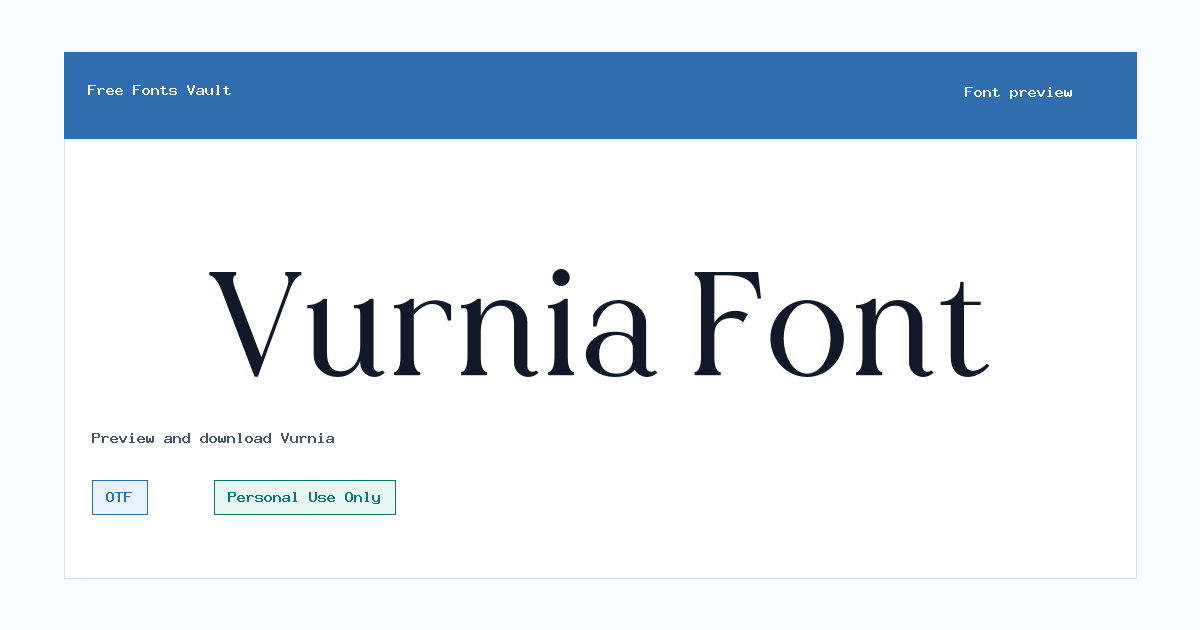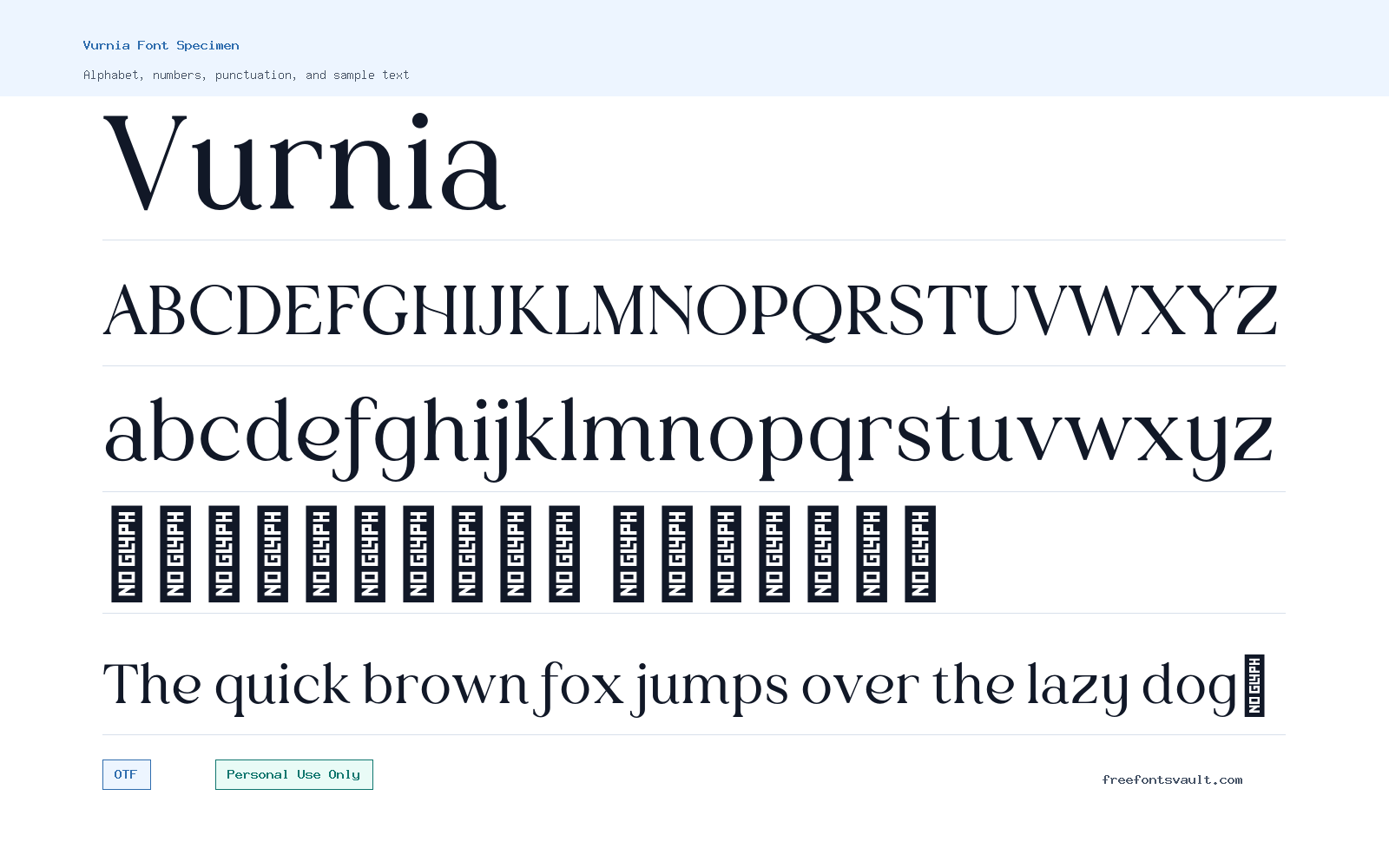
Vurnia
Vurnia Font
About Vurnia
Vurnia has a serif identity, so it is a good font to try when you want text with a more formal or editorial feel than a plain sans serif. Because the downloadable file is a regular 400-weight style, it is most useful for clean single-style previews rather than full typography systems with bold, italic, or multiple weights. Test it with your own wording in the preview box, especially if you plan to use it for a logo draft, invitation mockup, poster heading, social graphic, or website hero title.
For best results, use Vurnia in short text first. Serif display fonts often show their character most clearly in larger sizes, while long paragraphs may need more spacing and careful readability checks. Try uppercase and lowercase words, names, punctuation, and numbers before downloading. If you pair Vurnia with another font, keep the second typeface simple so the serif shapes do not have to compete. A neutral sans serif can work well for captions, buttons, body copy, and supporting information while Vurnia handles the main title.
• Serif font style suited to titles, display text, and personal design tests
• Personal poster, invitation, quote, and social media design drafts
• Headline previews, logo mockups, name treatments, and short editorial-style titles
What kind of font is Vurnia?
Vurnia is listed as a serif font. It is best tested for short display text such as titles, names, headings, and design mockups.